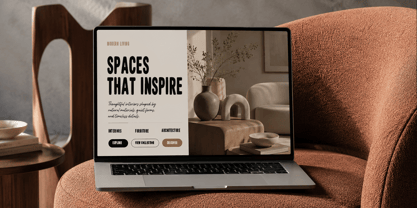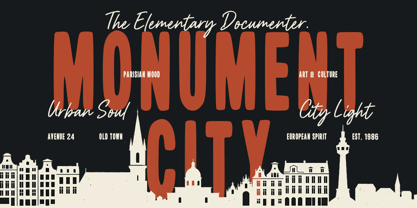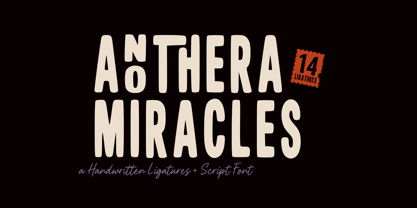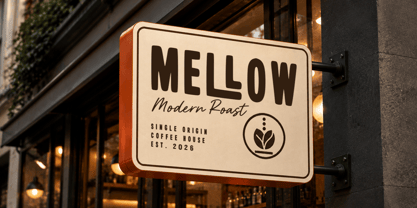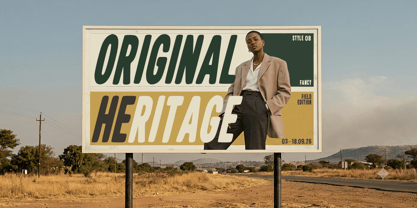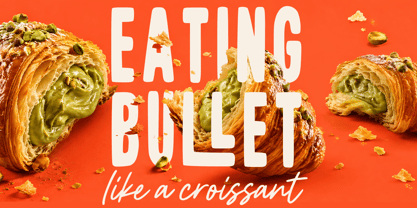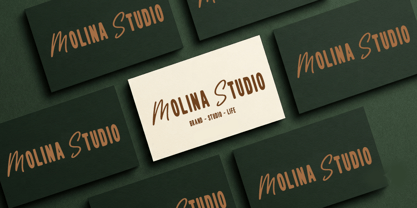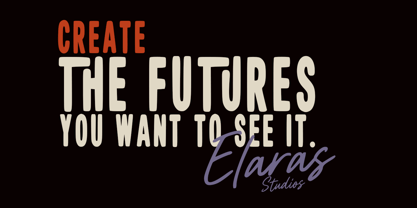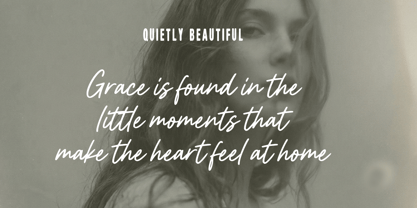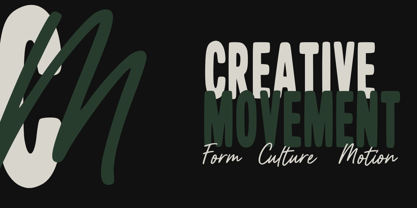
Anothera Miracles
by Struggle Studio
The Anothera Miracles Font Family was designed by Andri Kurniawan and published by Struggle Studio. Anothera Miracles contains 3 styles and family package options. More about this family
ANTHERA MIRACLES is a bold and expressive handwritten display font designed to bring a playful, organic, and artistic character to your designs. Featuring chunky letterforms with subtly irregular shapes and a distinctive hand-drawn feel, this typeface creates a strong visual impact while maintaining a warm and approachable personality.
The font also includes 14 handcrafted ligatures that add unique character and natural variation to your typography, making each word feel more dynamic and authentic.
Perfect for posters, branding, logos, apparel, packaging, album covers, stickers, social media graphics, headlines, and creative merchandise, ANTHERA MIRACLES is made for designs that need a bold handmade statement with a touch of personality.